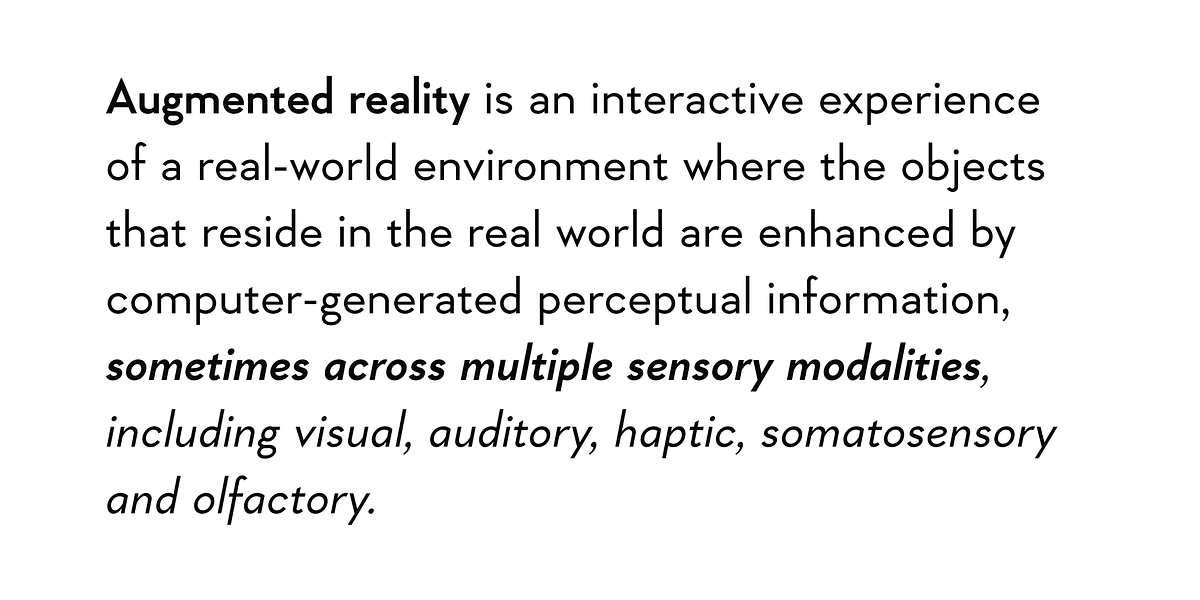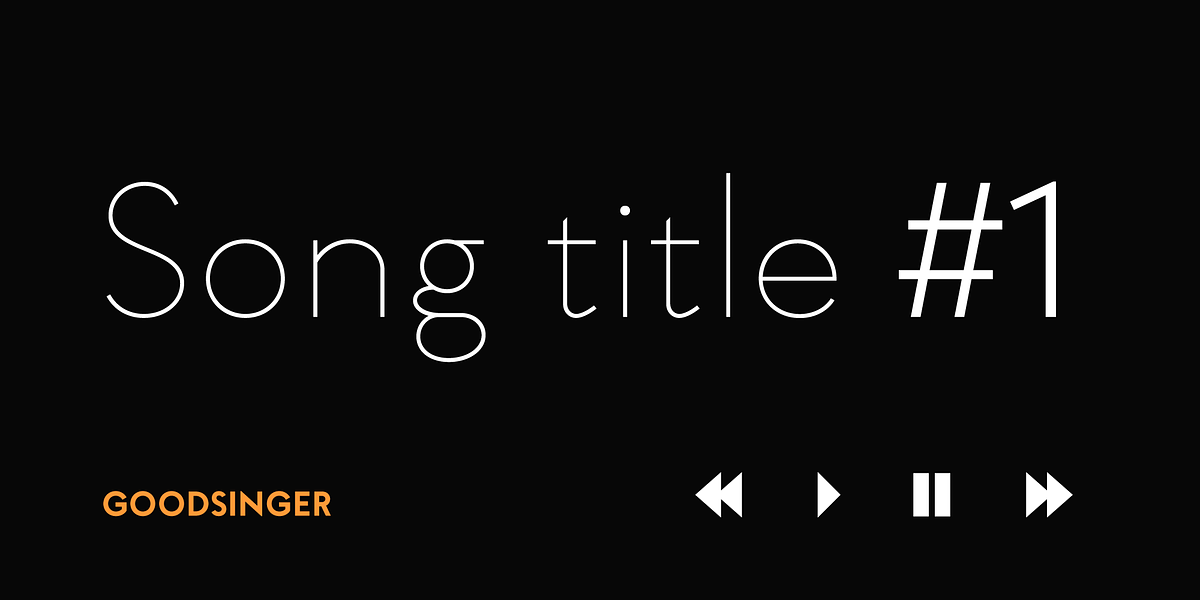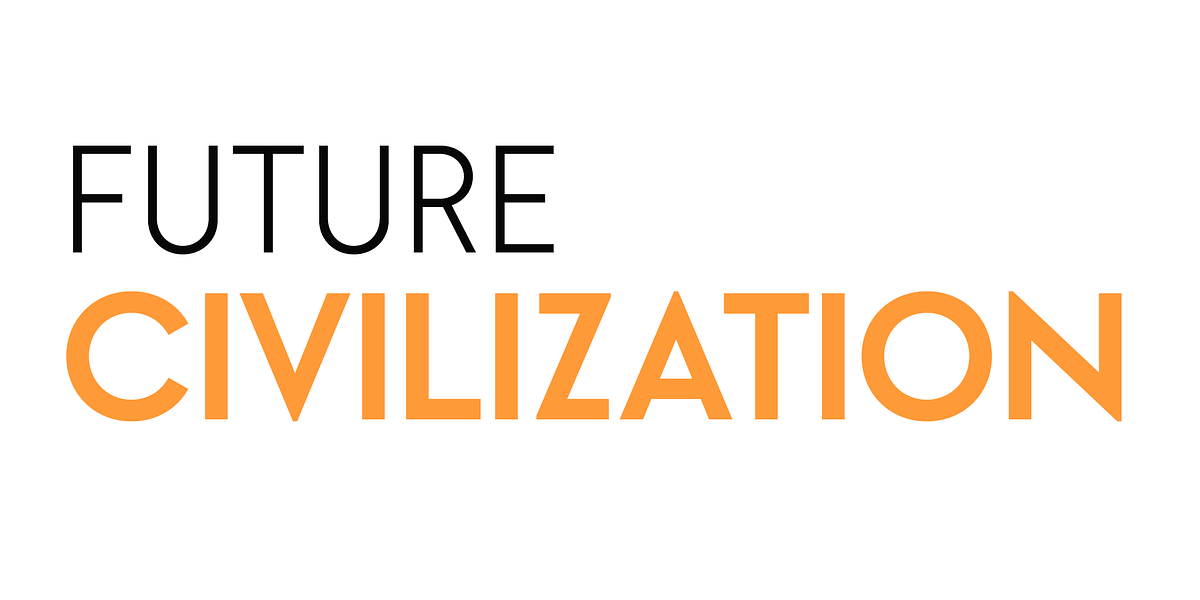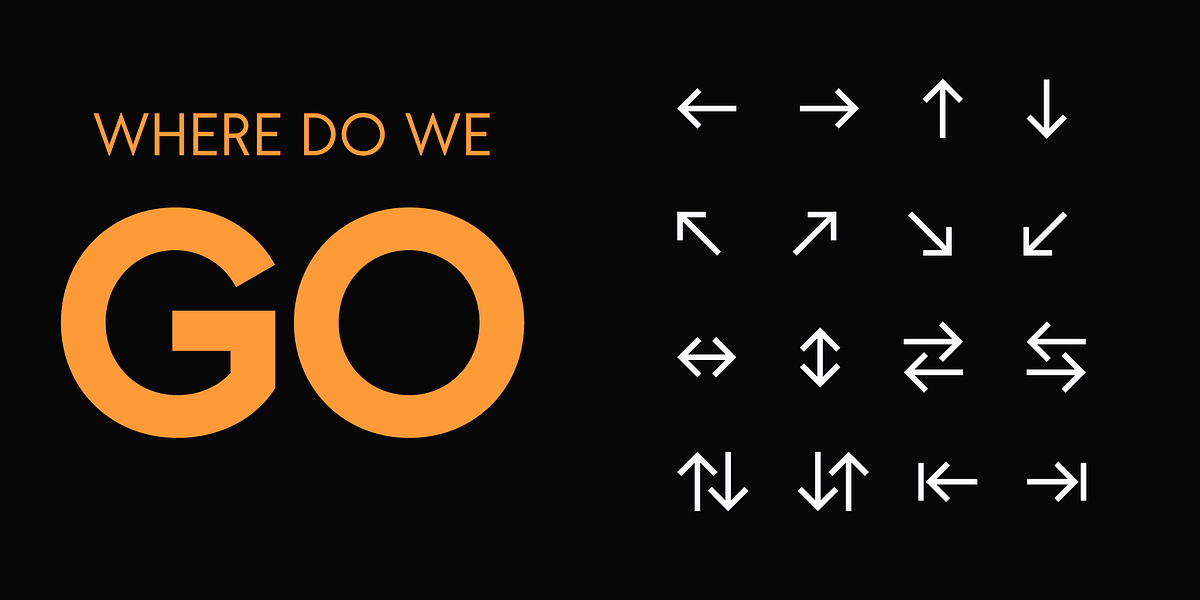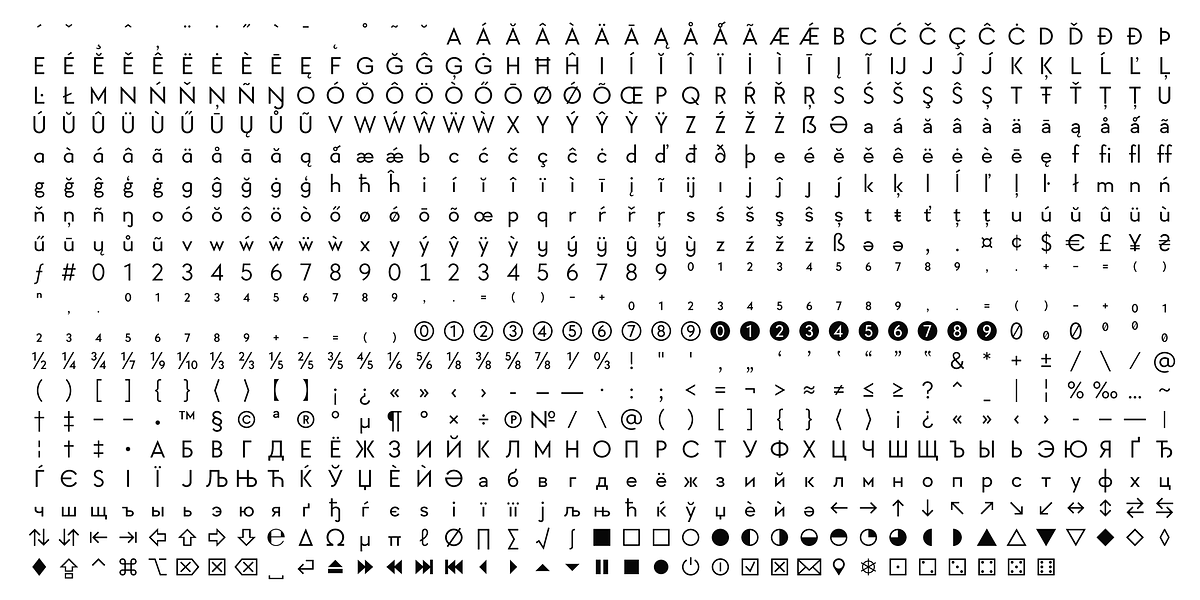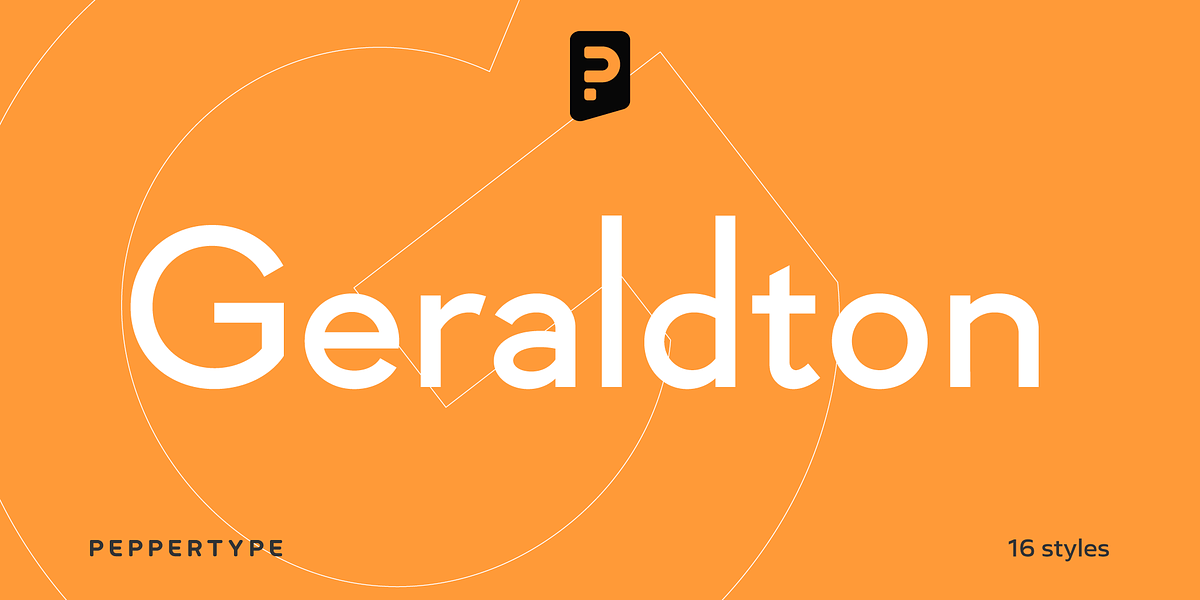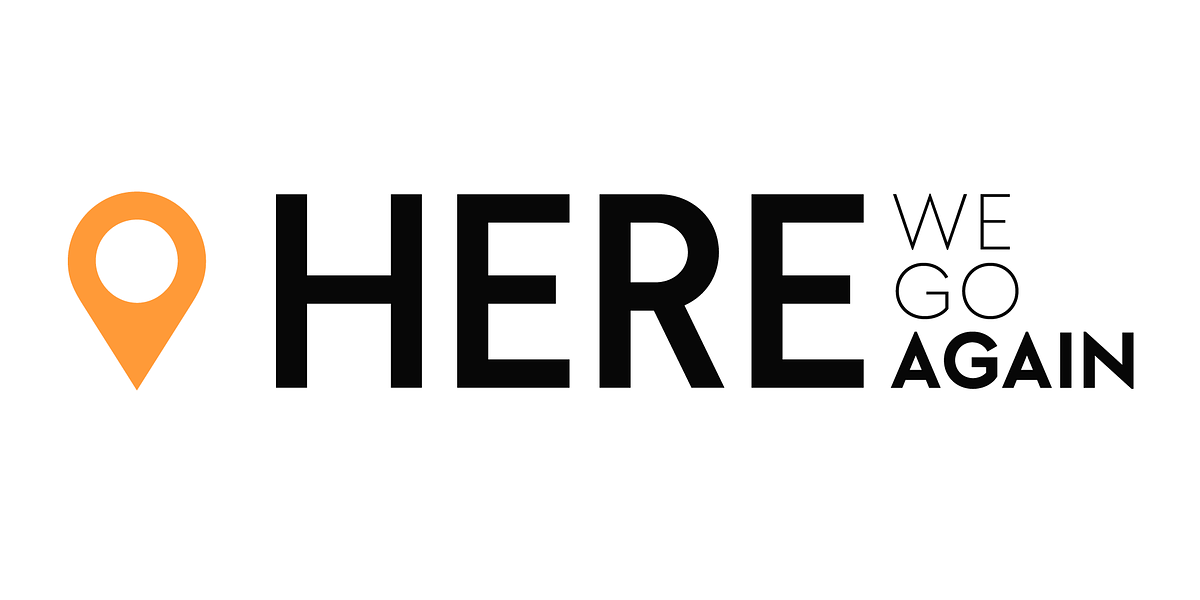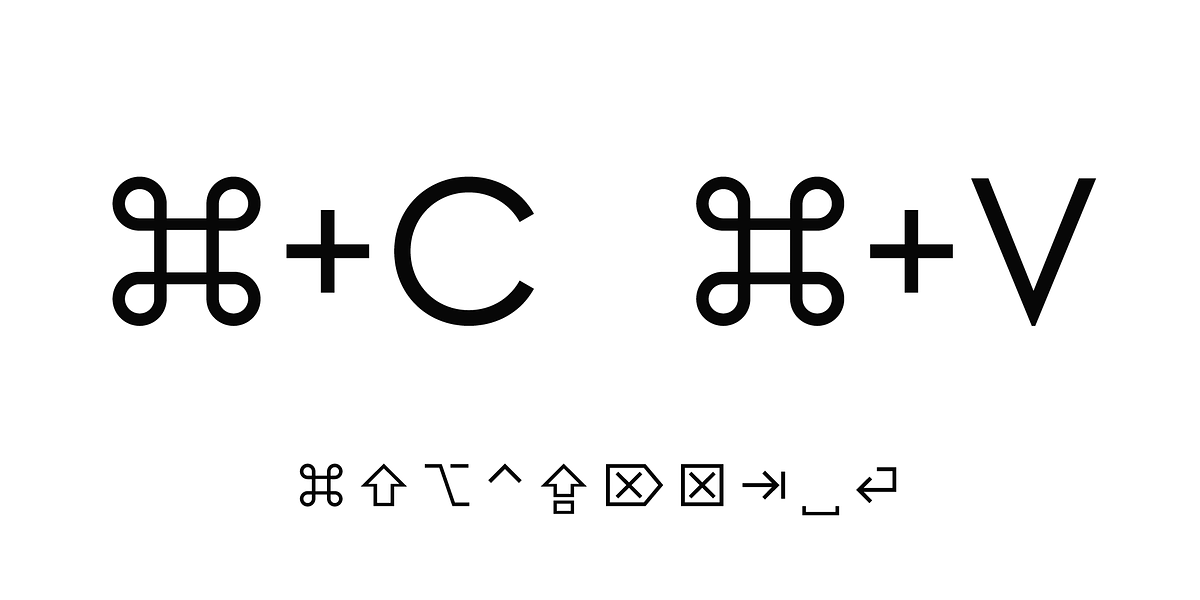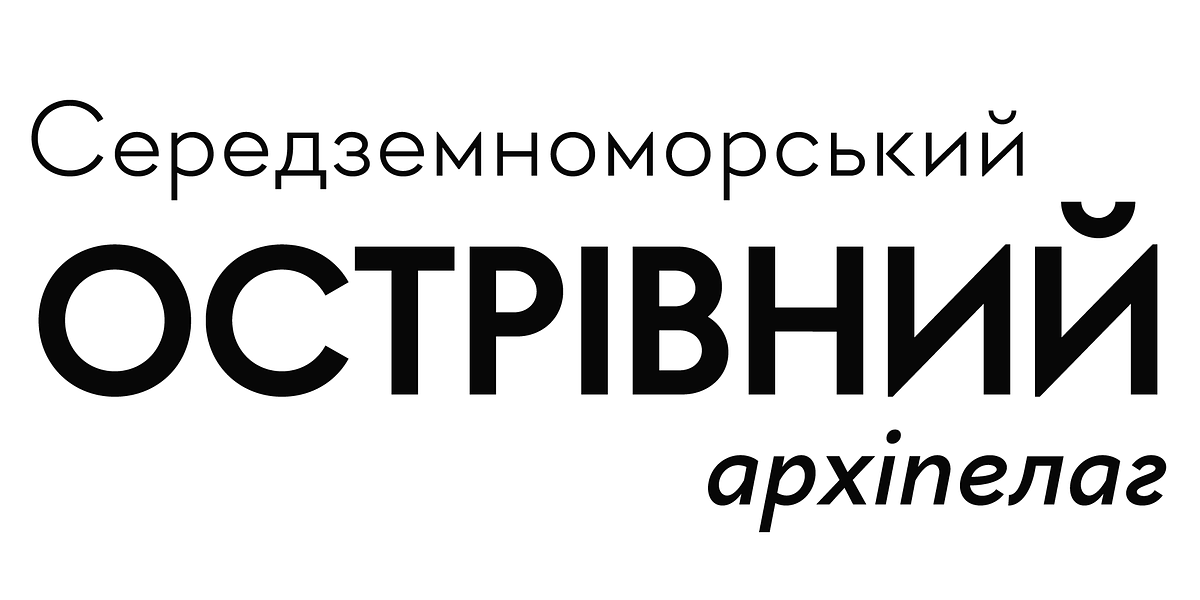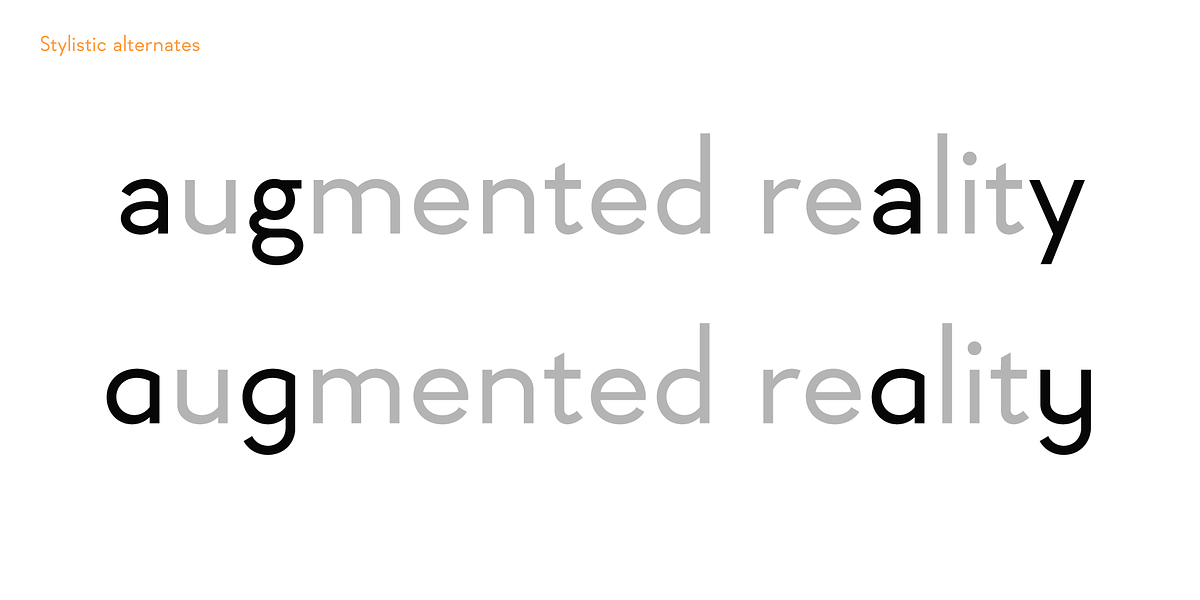
Geraldton
Geraldton is a geometric sans-serif typeface inspired by the styles of the 1920s and 1930s. It features a low x-height and sharp angles, giving it a distinctive modern look. The font also includes a subtle humanist touch, softening its overall appearance. Geraldton supports a wide range of languages, including European Latin and Cyrillic scripts. It comes equipped with numerous OpenType features and even includes dozens of computer-related dingbats, making it a versatile choice for various design applications.